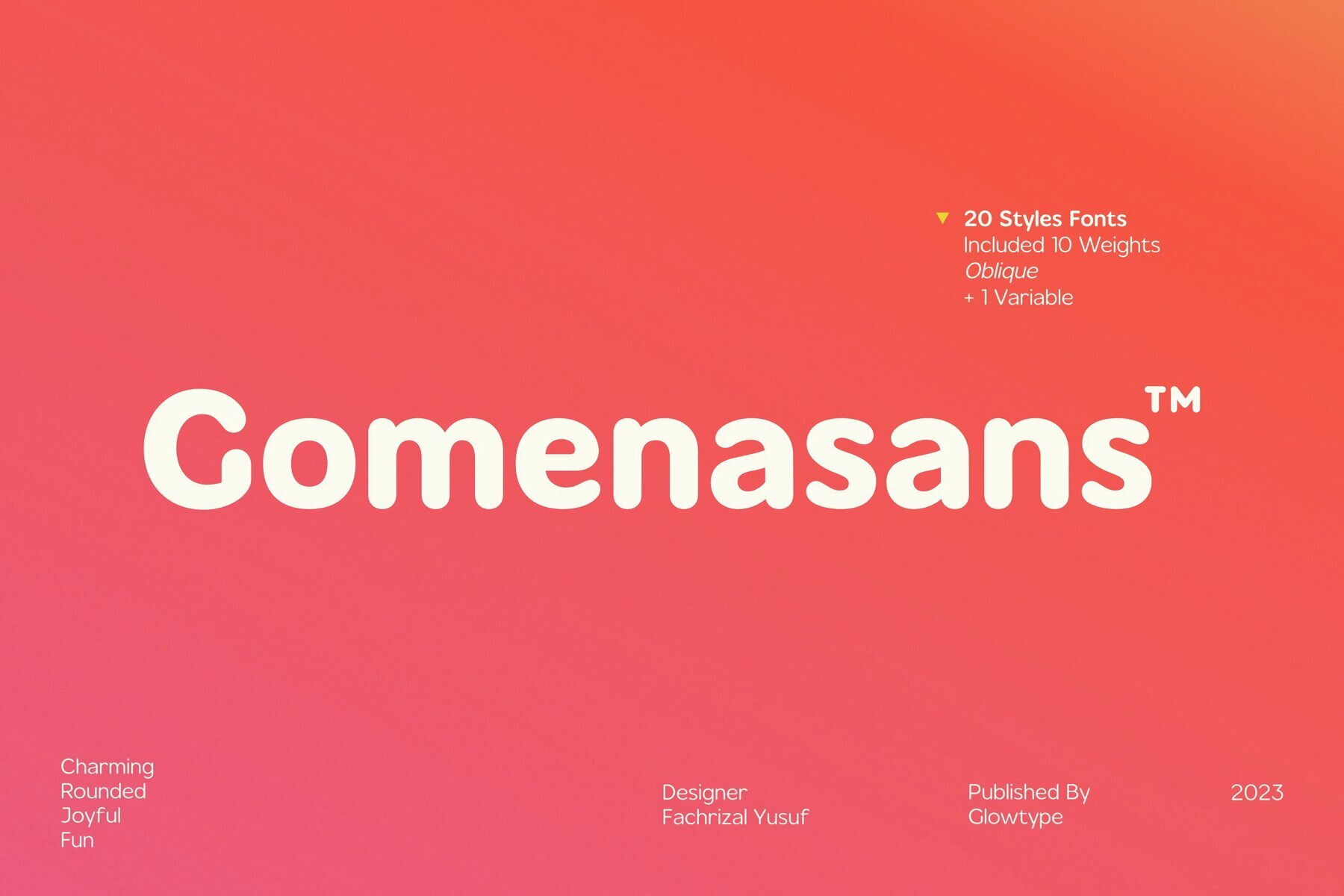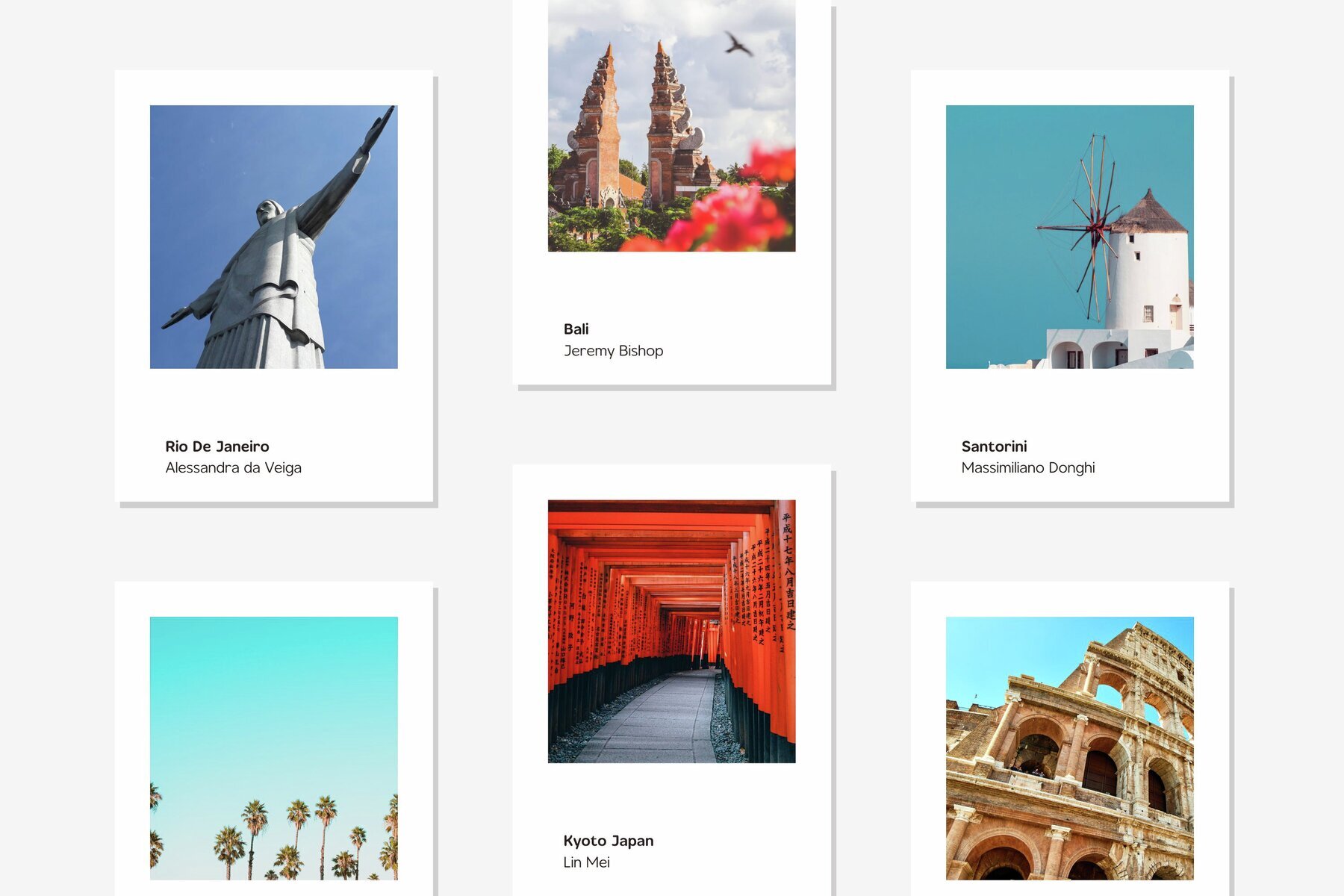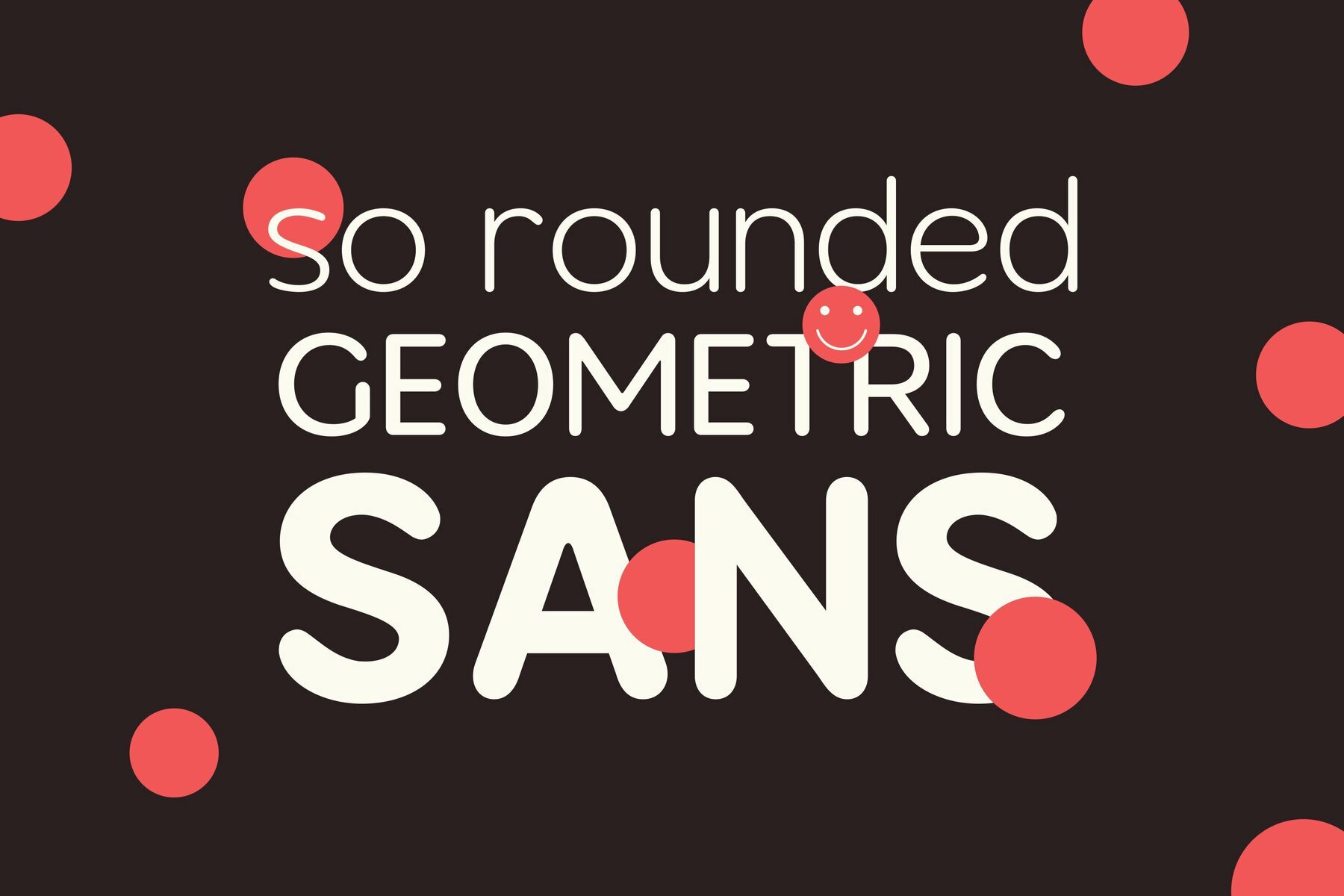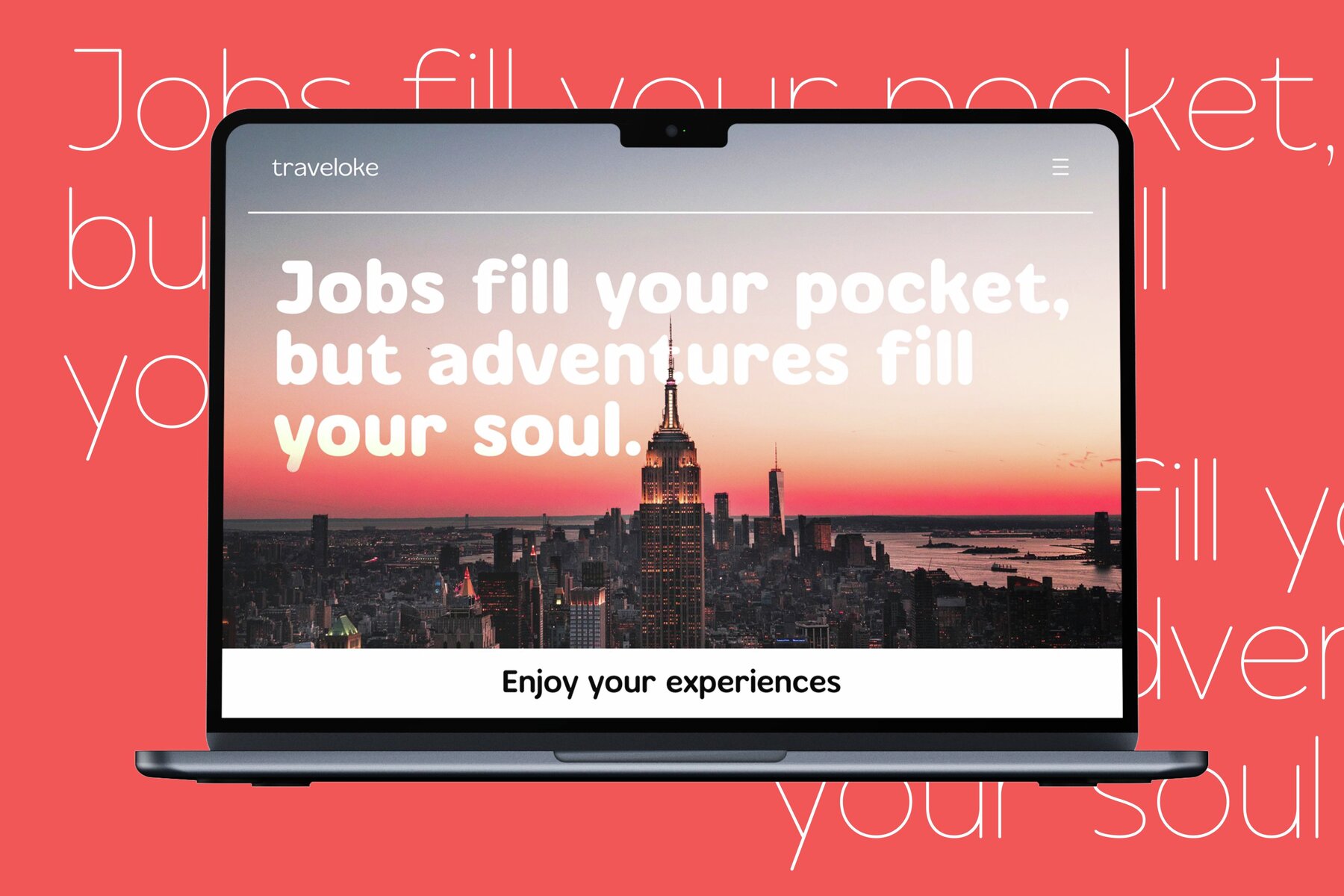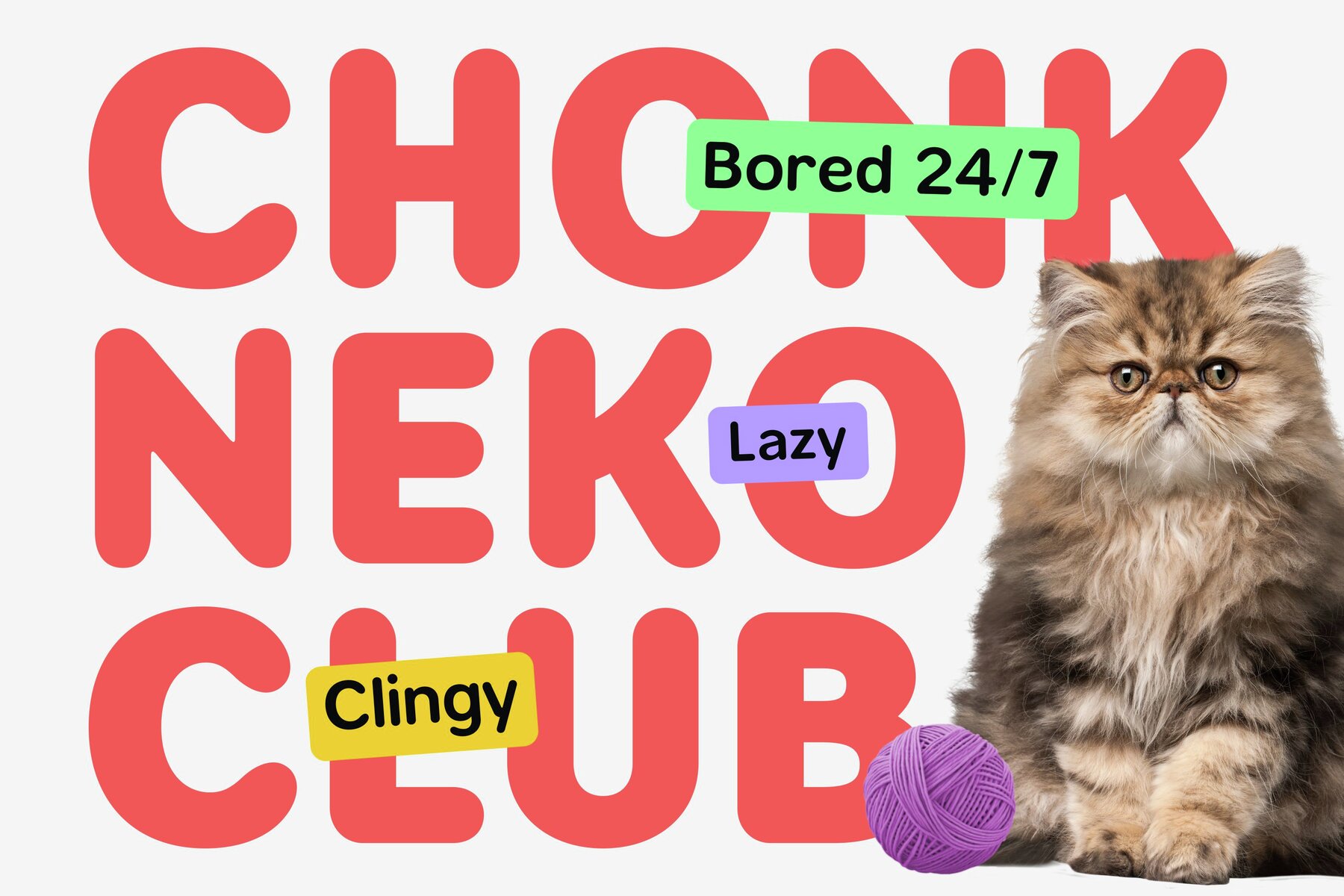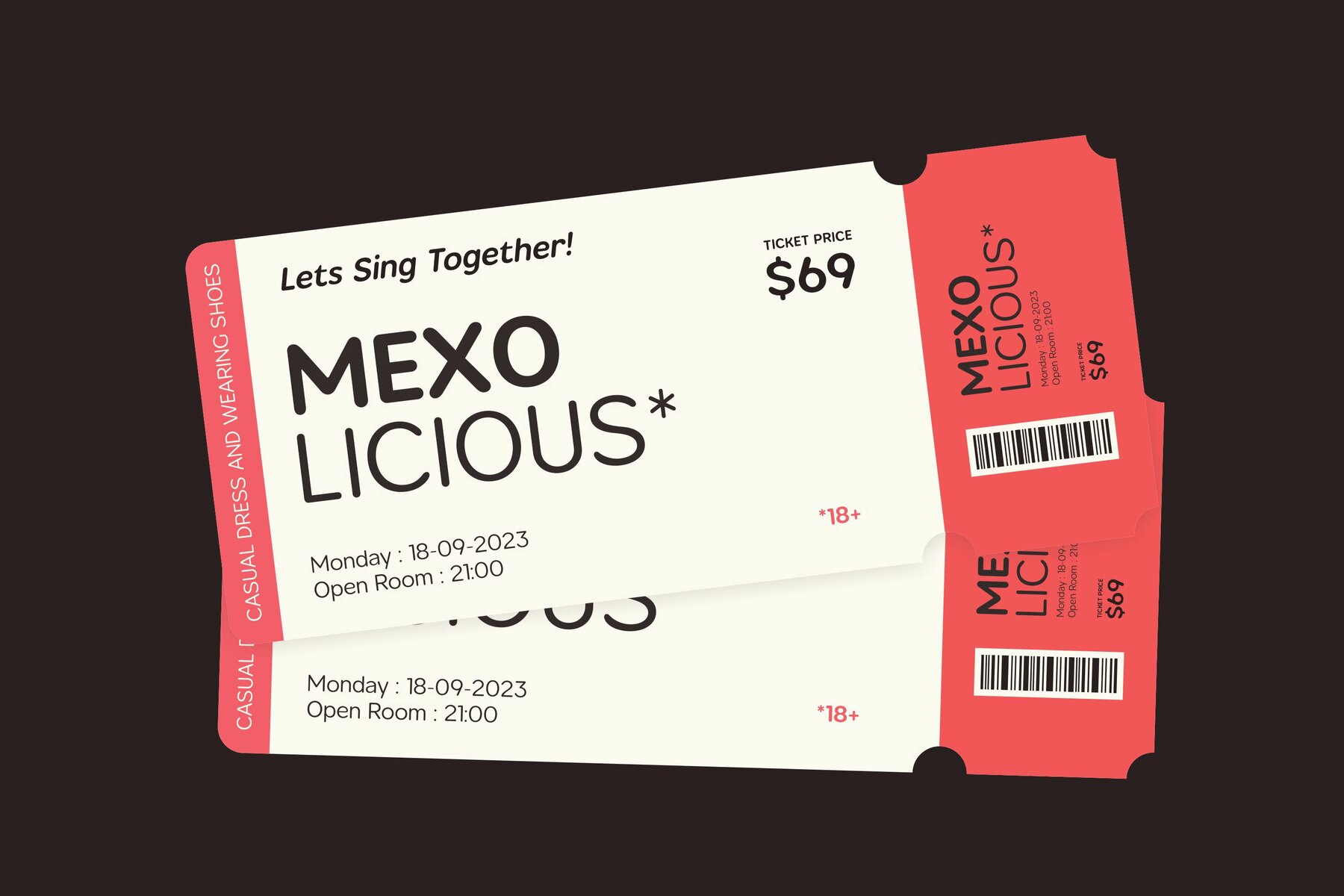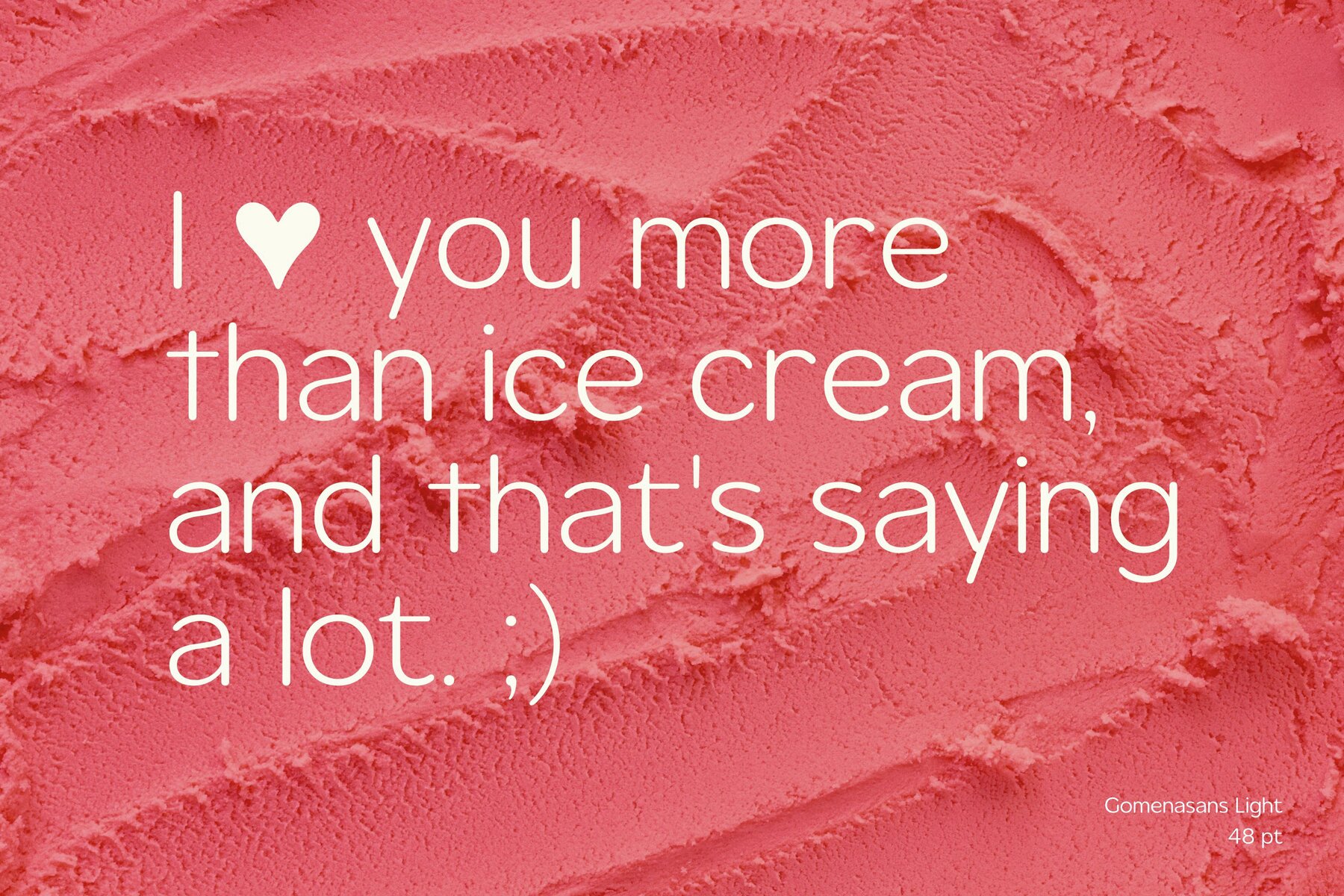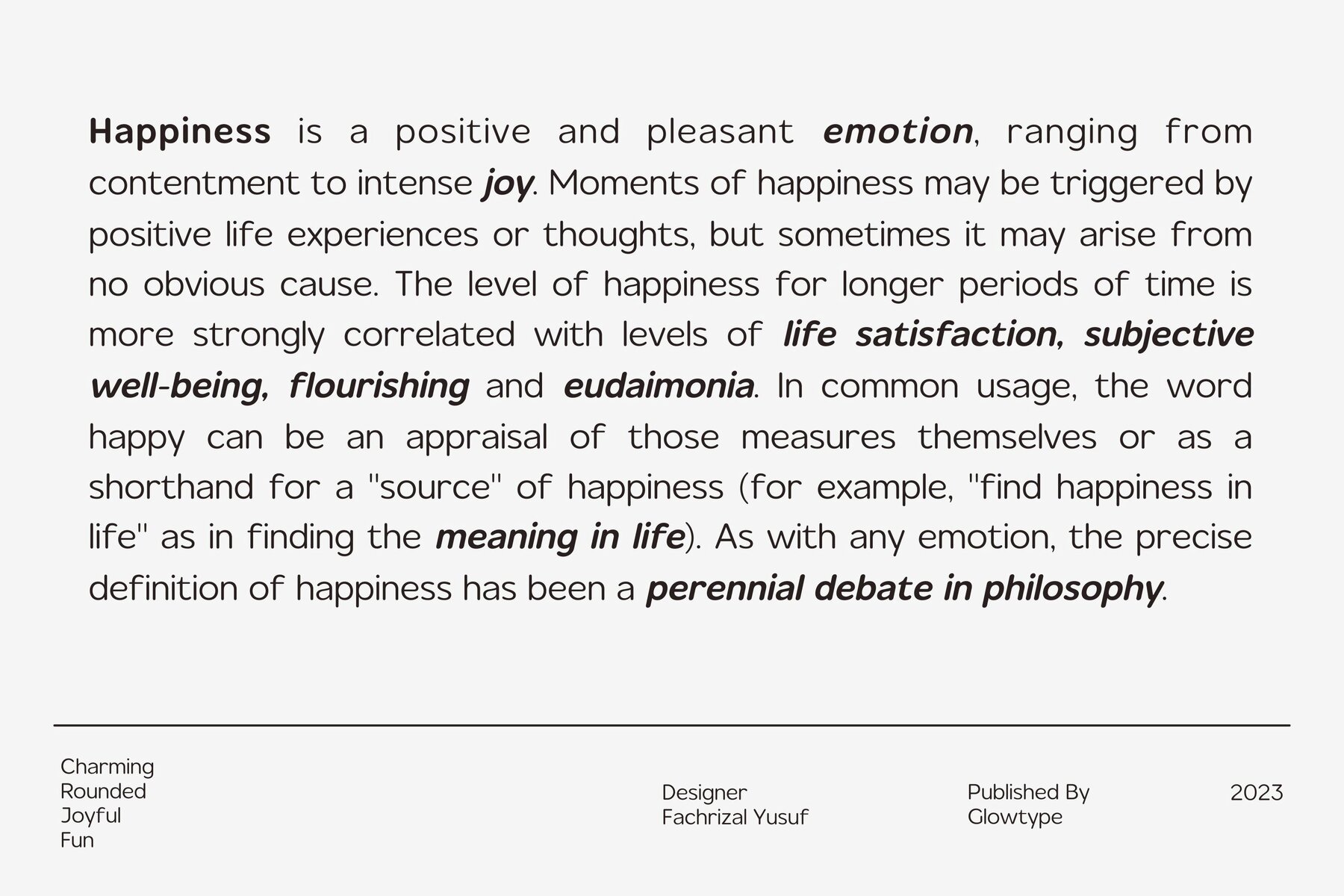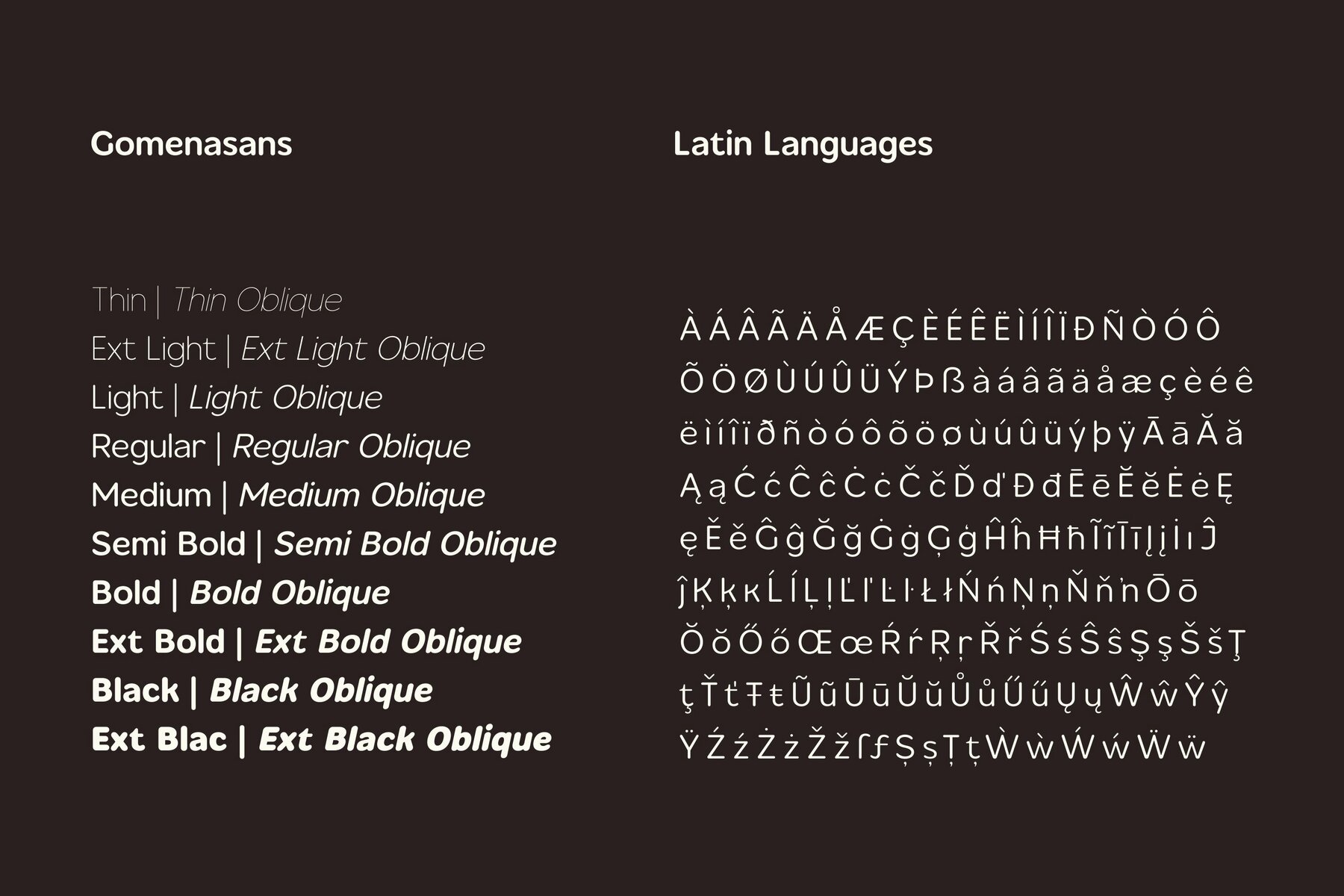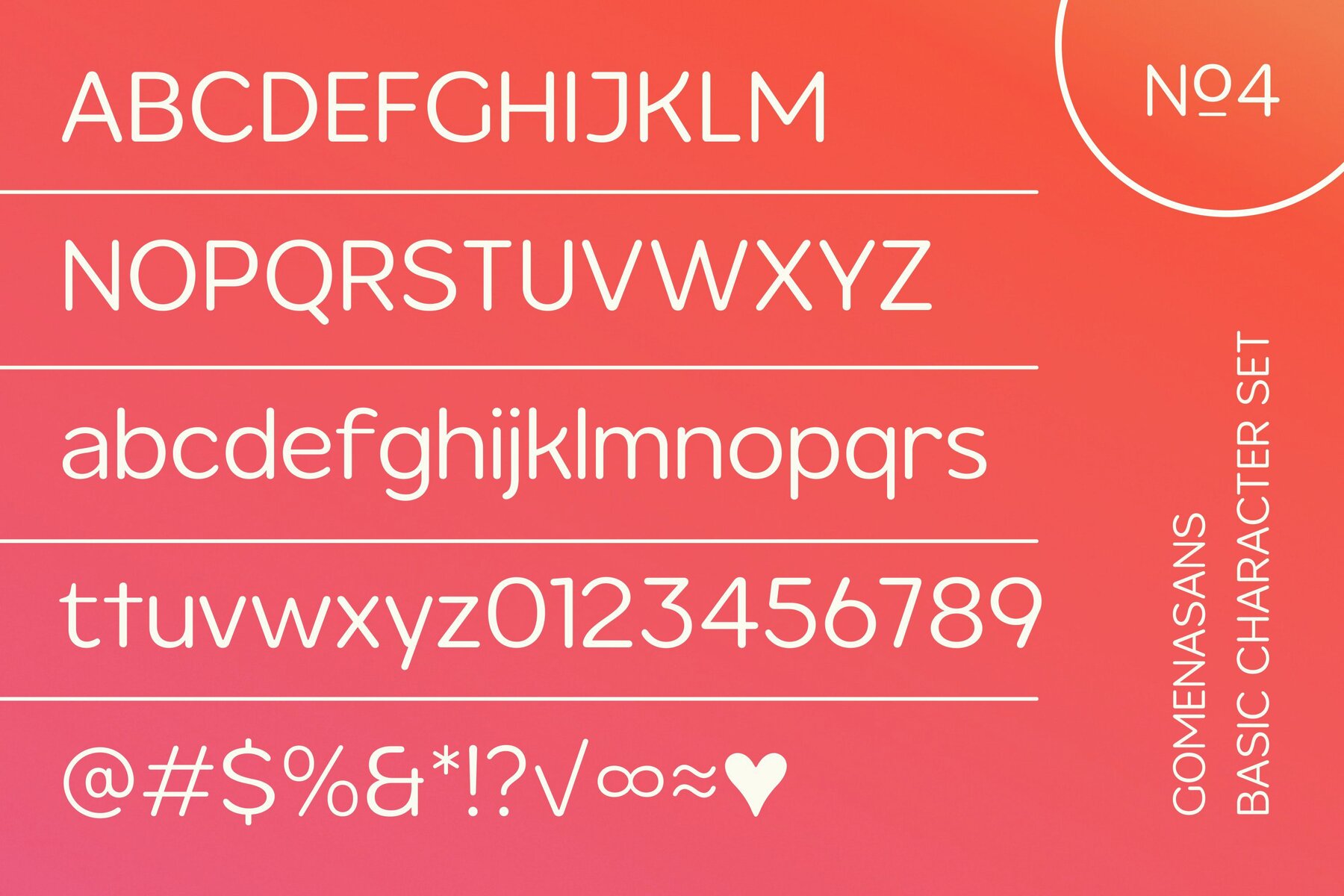
Gomenasans Font
Drawing inspiration from the vibrant palette of Japanese cuisine, Gomenasans offers a bold and cheerful character. This rounded, chunky font captures an authentic 80s flair, making it a standout choice for those seeking originality in design. A versatile asset for creative projects, Gomenasans includes an extensive range of 20 styles and variables. Its diverse weights, ranging from thin to black and oblique, make it an ideal solution for any branding endeavor. Whether crafting a logo or designing a website, this font adapts seamlessly to various contexts.Gomenasans: A Playful Geometric Sans